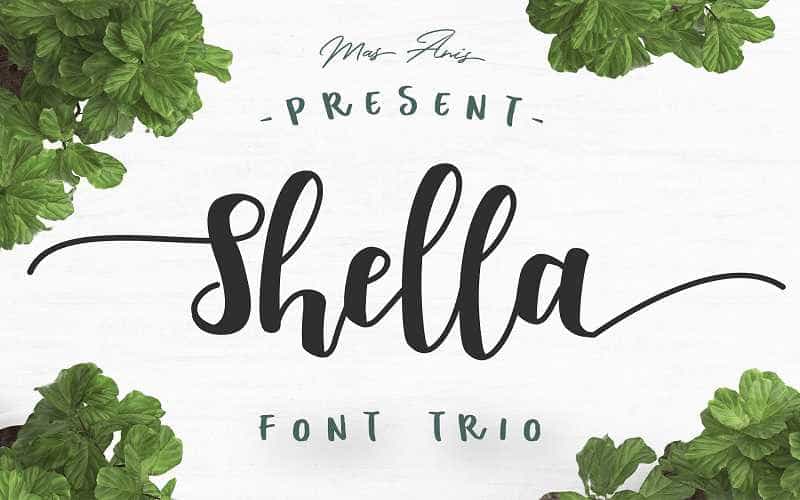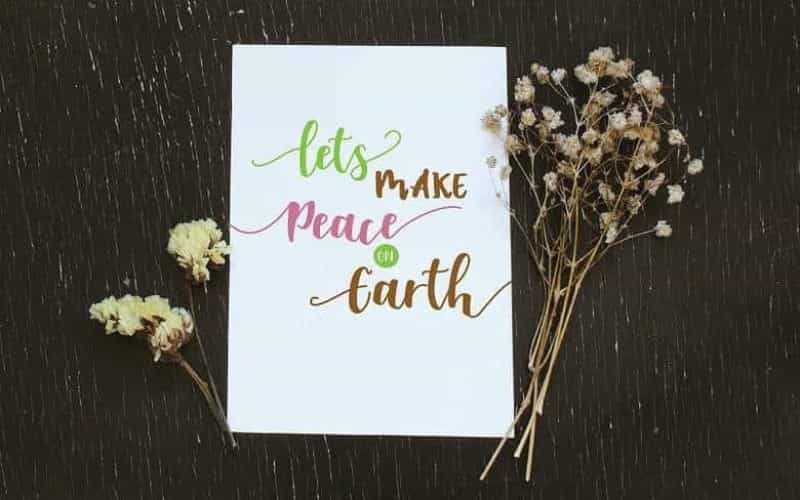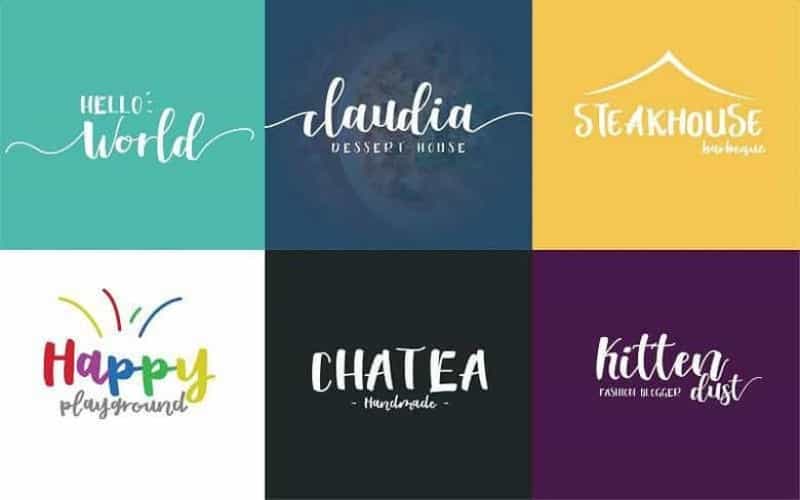
Shella Font Trio . A friendly, warm, and comfortable hand brushed typeface that contains 3 different styles. Shella Clean font works in conjunction with the Shella sans or Shella rough font to ensure that each word is different from the other. Ideal for any designing purpose – modern invitation designing, logo designing, lettering, designing stationery items, blogs, designing modern advertisements, invitations, art quotes, home décor, designing book/cover titles, birthday invitations, special occasions, customised mugs, pillows, t-shirts, for all brush lettering requirements and much more.